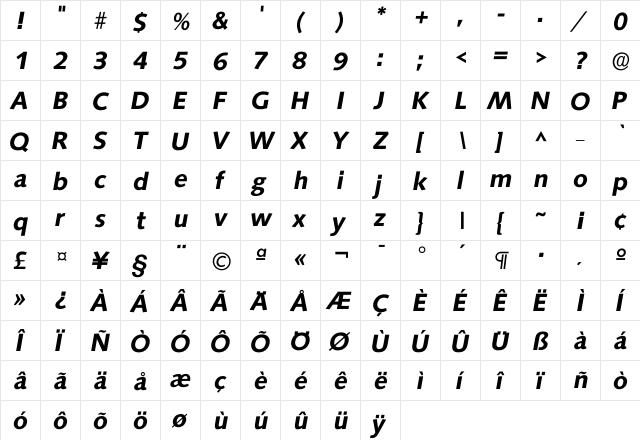
Isaxony DemiBold
Design Context for Isaxony Typeface
Isaxony is a composed and adaptable typeface that performs quietly and consistently across a wide range of design contexts. The heavy weight commands attention and anchors typographic hierarchies.
Pro Tip: Pair Isaxony with a font of contrasting weight or personality to build a more expressive typographic hierarchy.